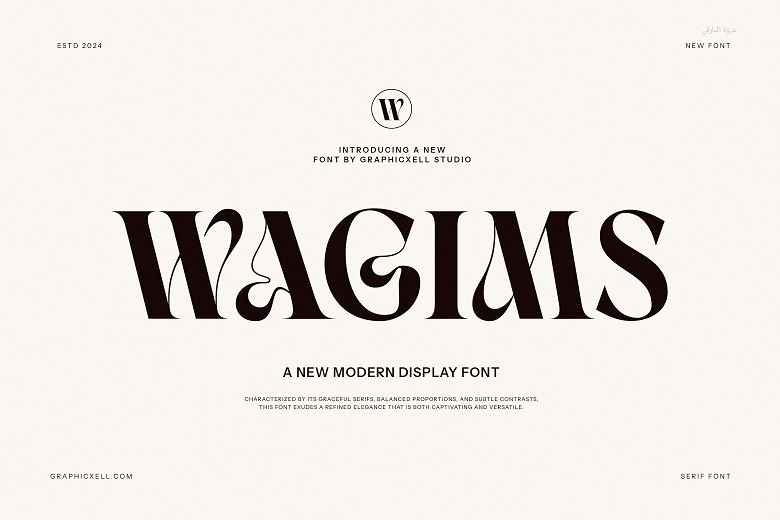
Wagims Font
Wagims Typeface is a modern serif typeface which gives stylish look to the text. Not only does it appear to be well put together, but it also appears to be friendly. That is especially fascinating, since the focus of this particular design is its ability to incorporate delicate curves, thus giving it an elegant look. The classy ligature also turns into one of its features and the appeal.
This font is contemporary touch wise inspired by calligraphy. Therefore, it is suitable for beauty designs as well as elegant crafting, layout designs, ad branding, as well as design templates and many more as mentioned above, no matter the project you are working on the Wagims Typeface always gives a contemporary and beautiful design.
Wagims Serif Font